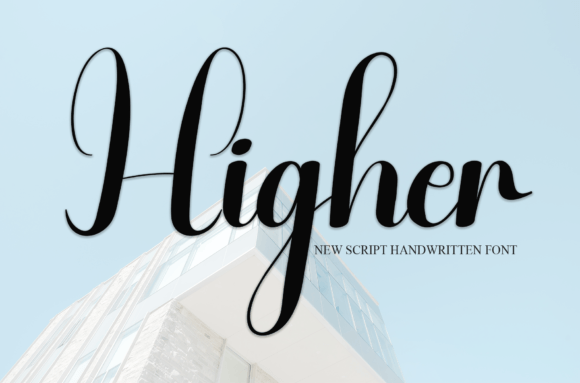
Looking for the perfect font to add a touch of charm and playfulness to your designs? Look no further than the captivating Higher Font! Created by the talented William Jhordy, this font is a beautiful addition to any project, especially those with a flat design aesthetic.
Higher Font falls under the script font family, bringing a sense of elegance and personality to your creations. Its sweet and friendly handwritten style adds a unique and personal touch to any text.
With its fresh and neat appearance, Higher Font is an excellent choice for various design purposes. Are you planning a wedding and want to make your invitations truly special? This font is perfect for adding a touch of whimsy and romance to your wedding invitations, making them truly unforgettable.
However, the Higher Font isn't limited to wedding invitations alone. Its versatility makes it suitable for a wide range of designs. Whether you're designing greeting cards, posters, or logos, this font will infuse your creations with a fun and playful vibe.
One of the most remarkable features of the Higher Font is its ability to evoke emotions. Its captivating and eye-catching design is sure to make an impact on anyone who lays eyes on your project. It has the power to make your text come alive, leaving a lasting impression on your audience.
When you choose the Higher Font, you're not just selecting a typeface, but rather a powerful tool to elevate your designs. Its uniqueness and charm will set your project apart from the rest, ensuring that it leaves a memorable impression on your viewers.